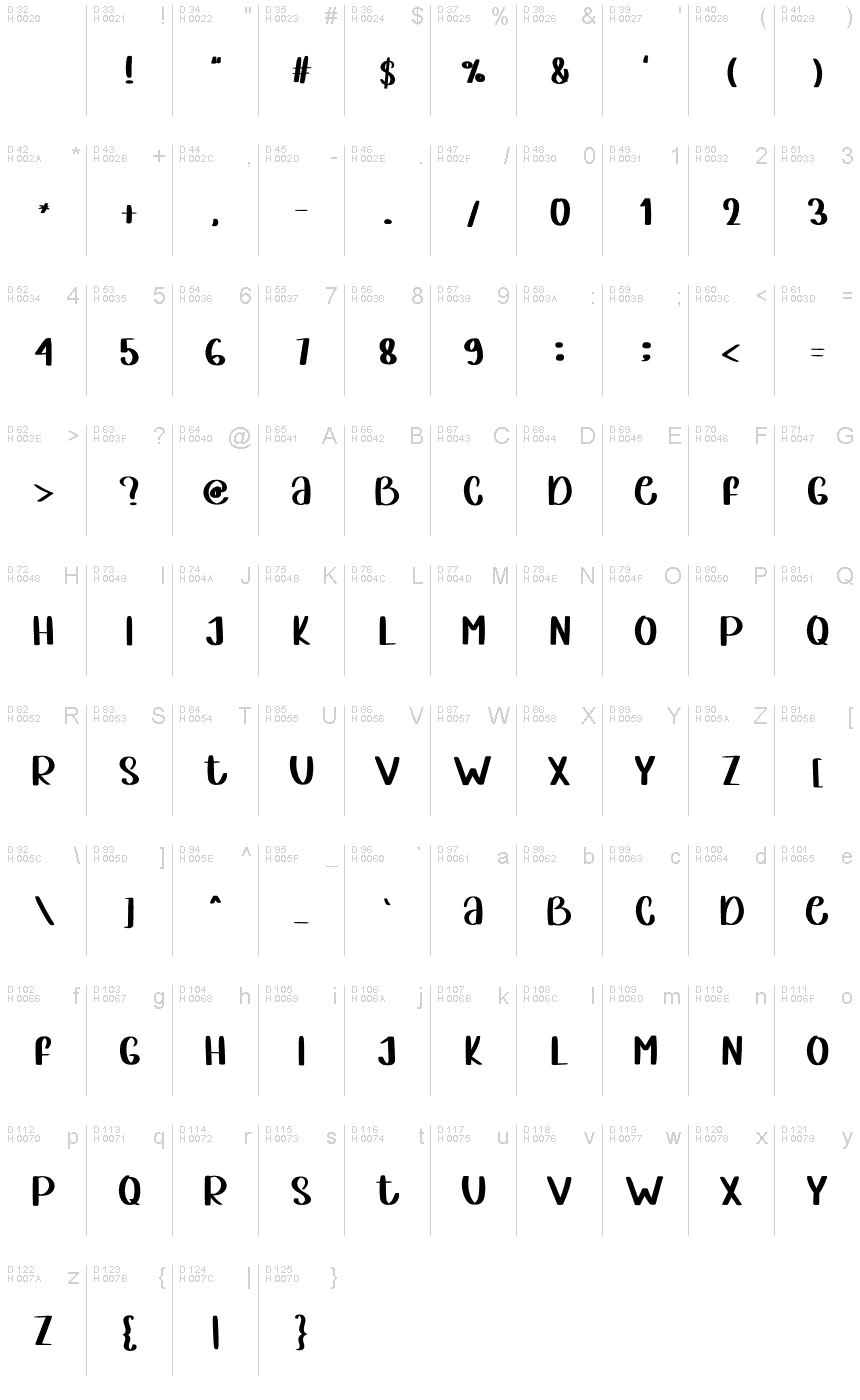
Marsmello
Marsmello is a stunning semi-bold font designed by Belina Studio. With its smooth brush style, it's perfect for creating eye-catching designs that demand attention. This versatile font is suitable for a variety of projects, from branding and packaging to social media graphics and posters. Its bold strokes and elegant curves make it an ideal choice for anything that needs to stand out from the crowd. Whether you're designing a logo or crafting a marketing campaign, Marsmello will help you make an impact with its unique and modern look.
the latest style letters are perfect for wall displays, wedding invitations, social media post logos, advertisements, product packaging, product designs, labels, photography, watermarks, invitations, stationery, and any project that requires taste handwriting.